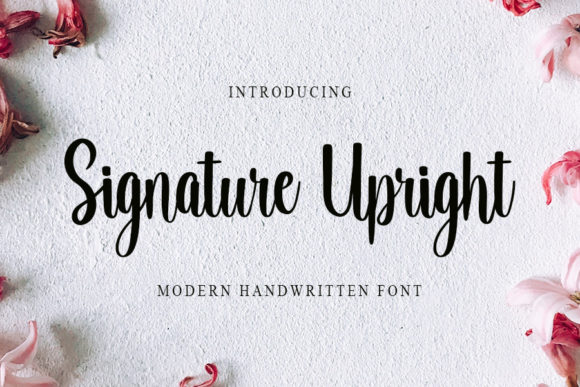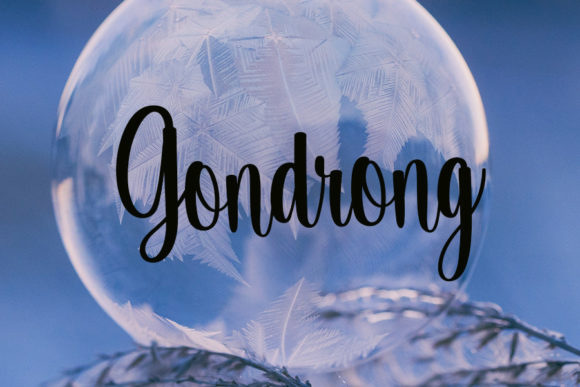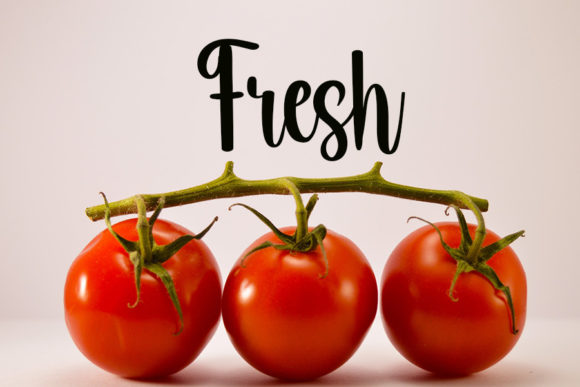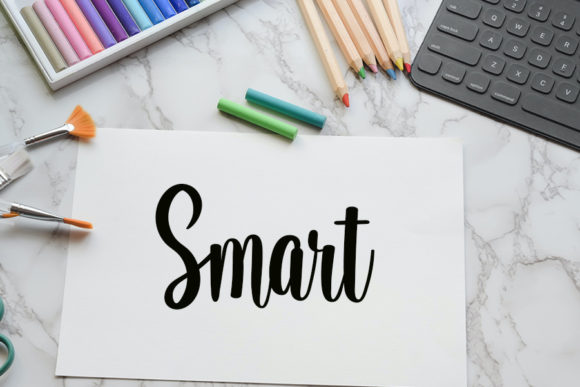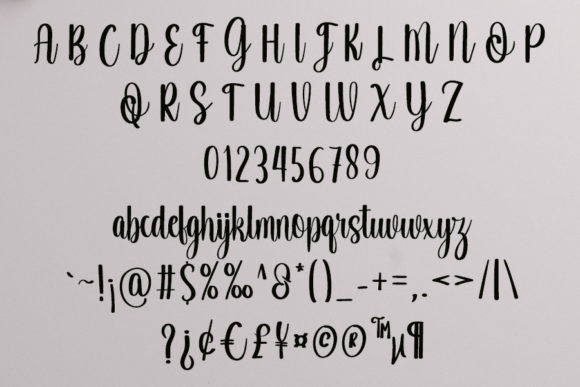
About Signature Upright Font
**Signature Upright** isn’t just a font; it’s a cool handwritten script that embodies a modern vibe while maintaining a spotless and balanced form, inspired by classic calligraphy. With a perfect balance between thin and thick strokes, this font is designed to add a touch of elegance and beauty to your projects.
Imagine using **Signature Upright** for various applications, where its modern yet classic calligraphy-inspired style enhances the visual appeal. The cool handwritten script ensures that your text is not only readable but also carries a sense of sophistication.
For branding projects, **Signature Upright** becomes a stylish choice, adding a touch of modernity while retaining a classic charm. The font’s varied and balanced form ensures that your brand identity exudes both uniqueness and timelessness.
In printed materials like invitations or cards, **Signature Upright** stands out, bringing a spotless and elegant touch to the text. Its modern vibe ensures that your messages are conveyed with a touch of contemporary flair.
Whether used for digital or print designs, **Signature Upright** adds a level of versatility and beauty. Its design, inspired by classic calligraphy, offers a refined and balanced aesthetic that enhances the overall visual experience.
Let **Signature Upright** be the choice when you want a cool handwritten font that seamlessly blends modernity with the timeless beauty of classic calligraphy. Its spotless form and varied strokes make it a versatile and stylish addition to your design toolkit.